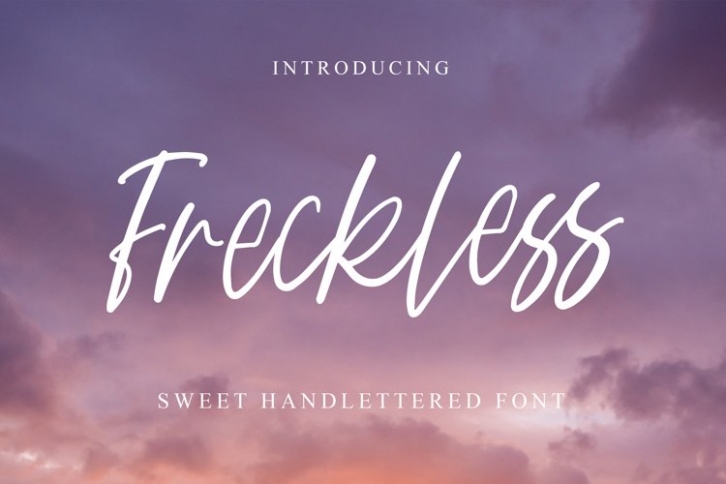
Freckless is a gorgeous font that was realeased on January 15, 2022. The font can be used in many style contexts and design environments. Perfect for invitations, magazines, websites, logos, and more! It was designed by plusstore and the file size is 20.24 MB. Thanks for checking out this font!